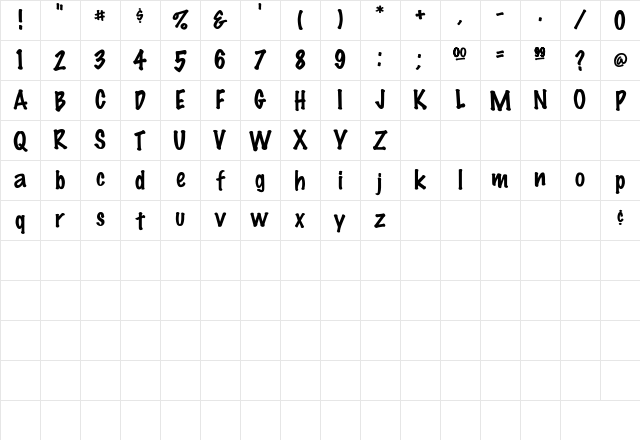
MarkerFeltThin Regular Free Font
MarkerFeltThin Regular
MarkerFeltThin Family
Complete MarkerFeltThin Regular glyph index. Displaying only characters natively supported by MarkerFeltThin Regular font.
Design Context for MarkerFeltThin
MarkerFeltThin is a composed and adaptable typeface that performs quietly and consistently across a wide range of design contexts. Its slender proportions lend an understated elegance to any composition.